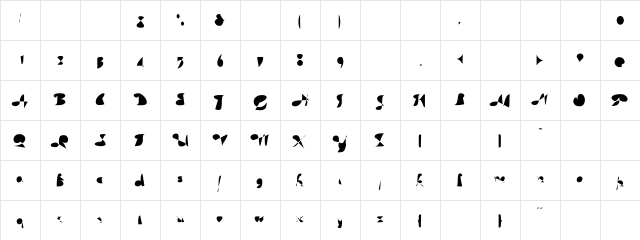
Devol Regular
Design Context for Devol
Devol is a composed and adaptable typeface that performs quietly and consistently across a wide range of design contexts.